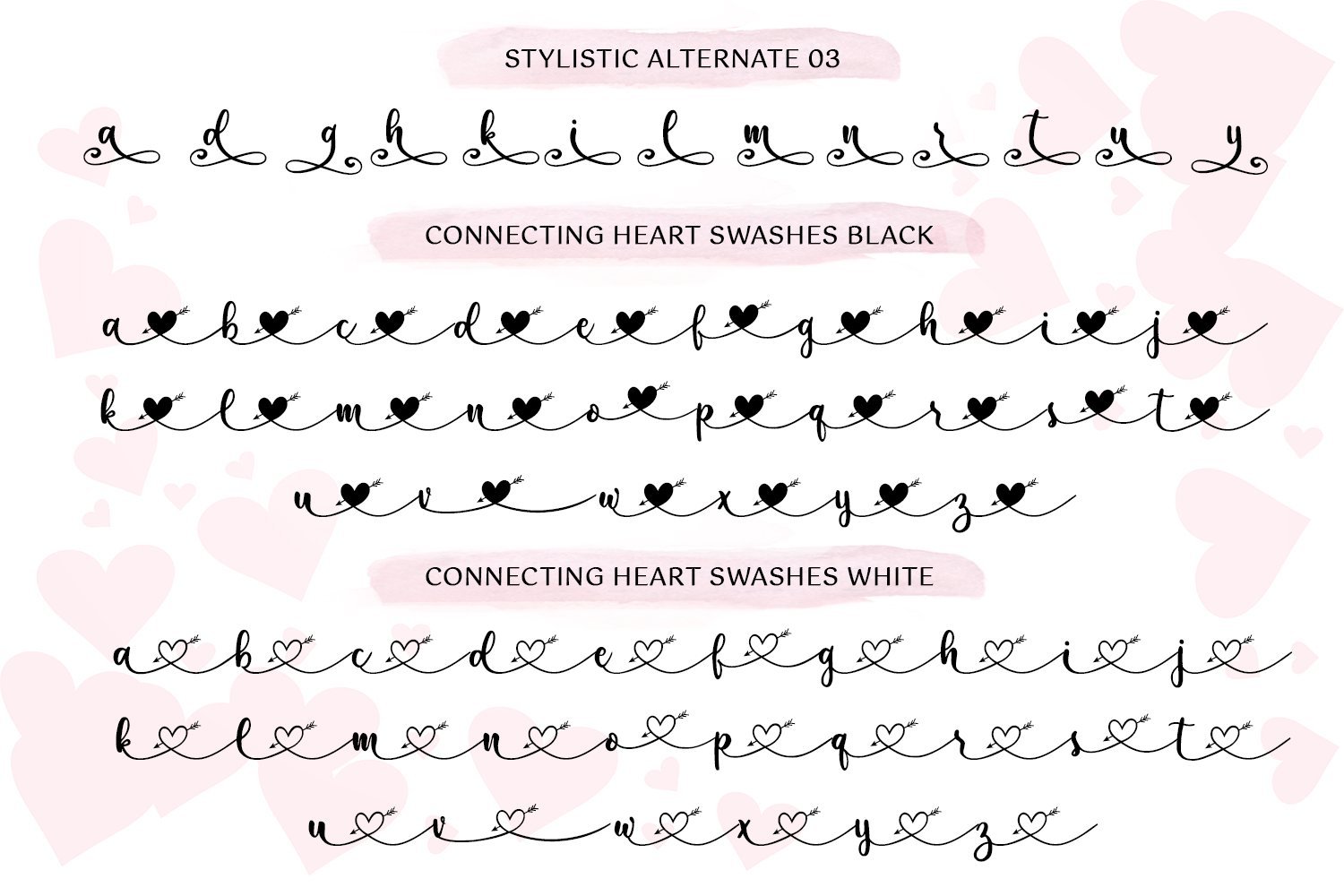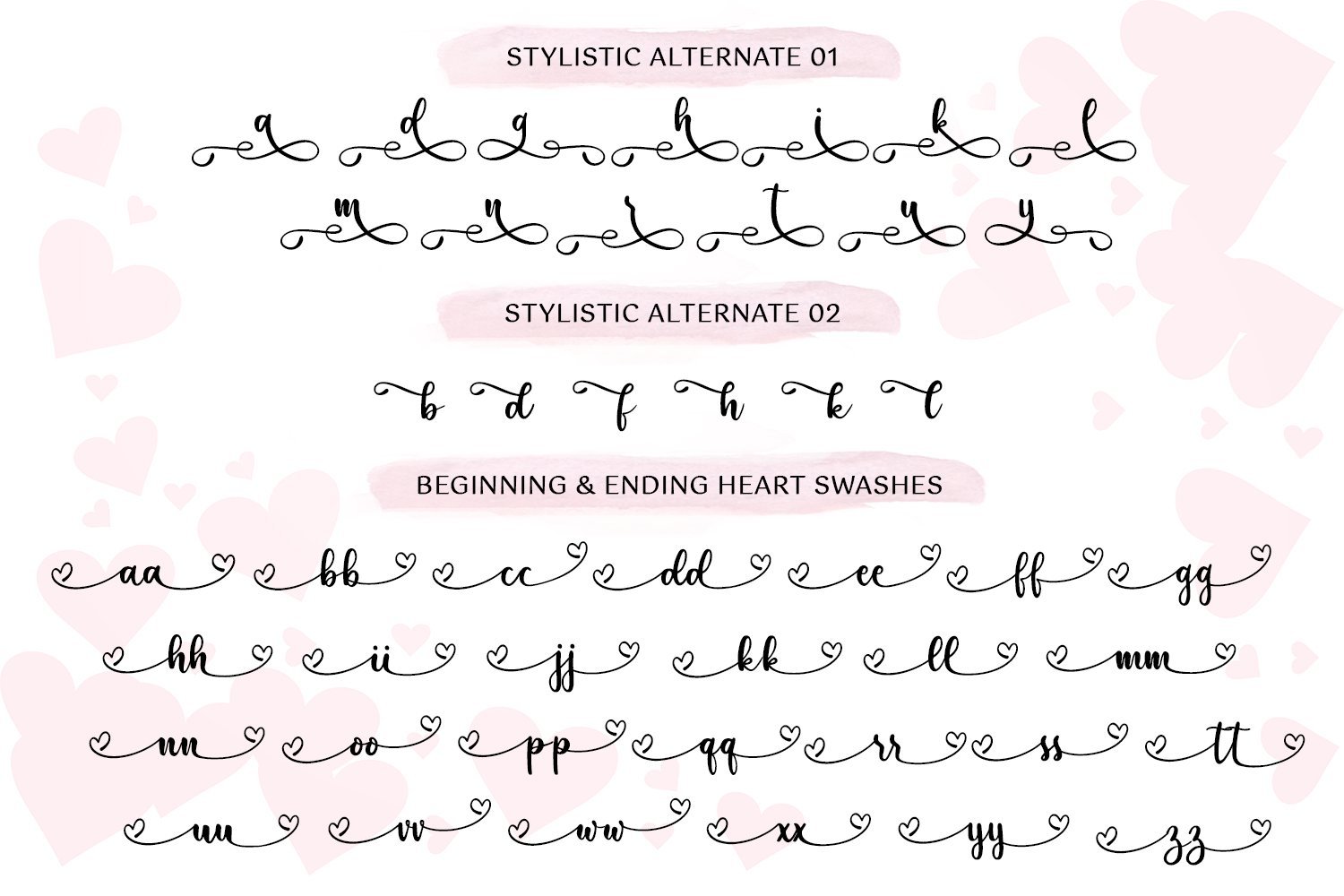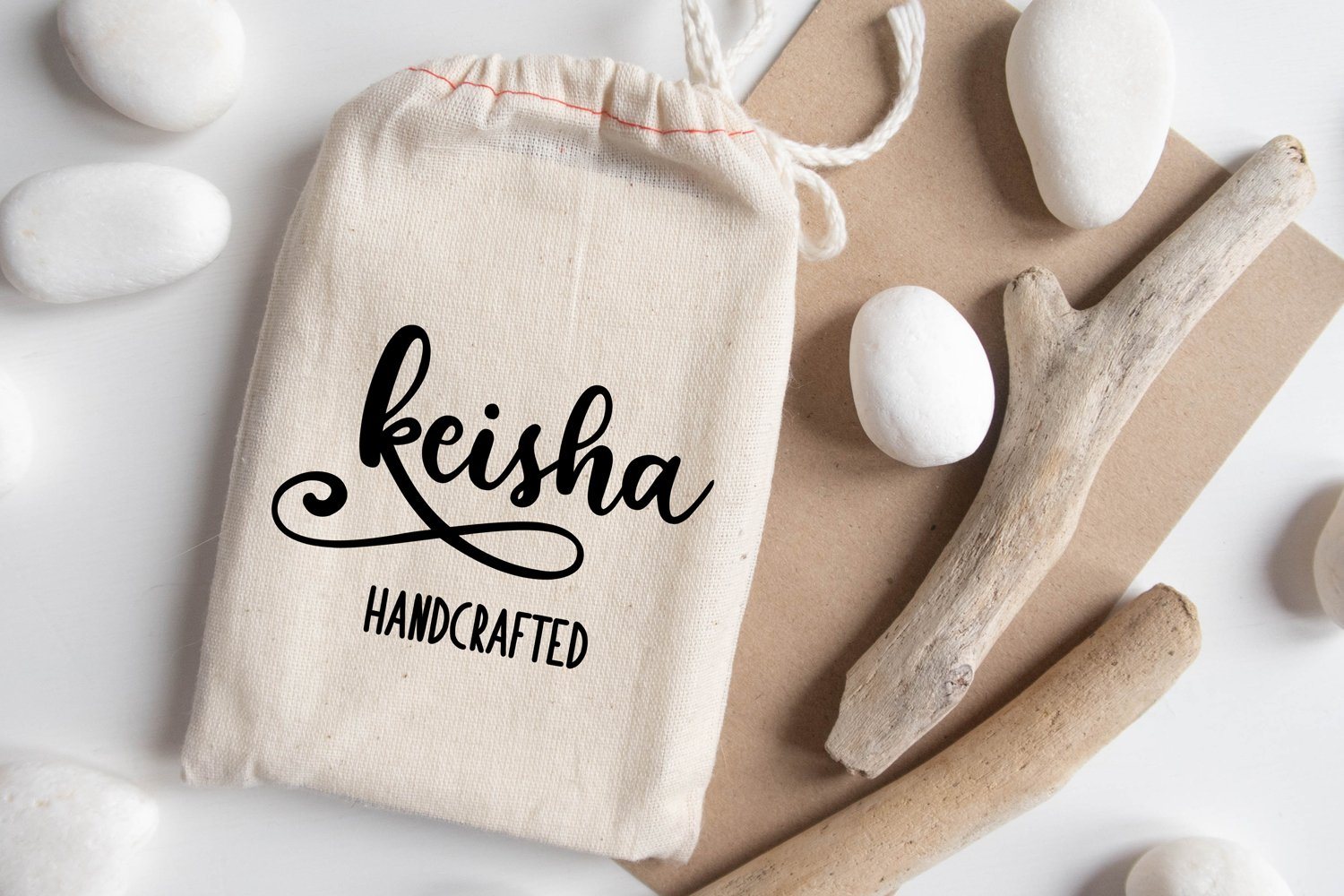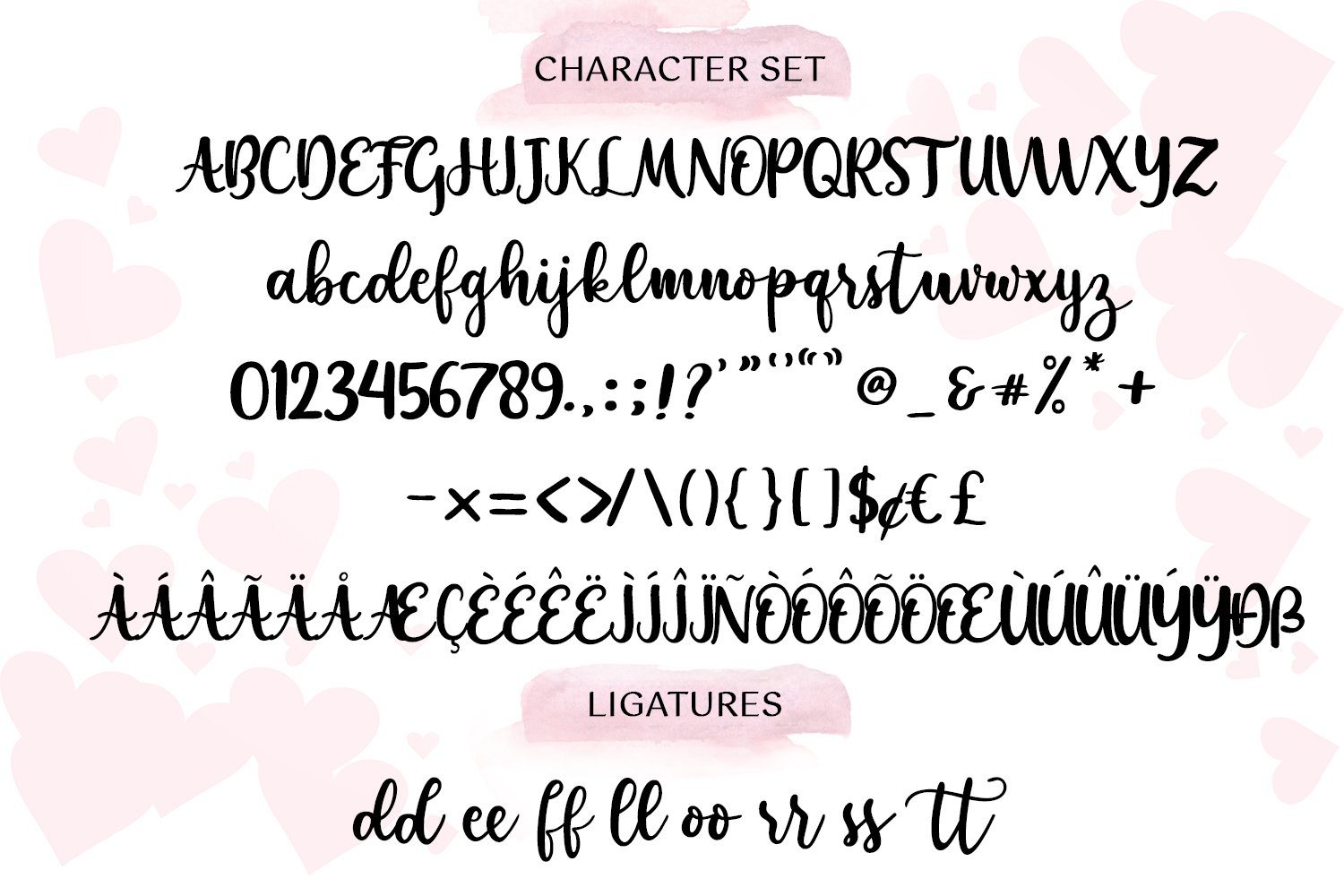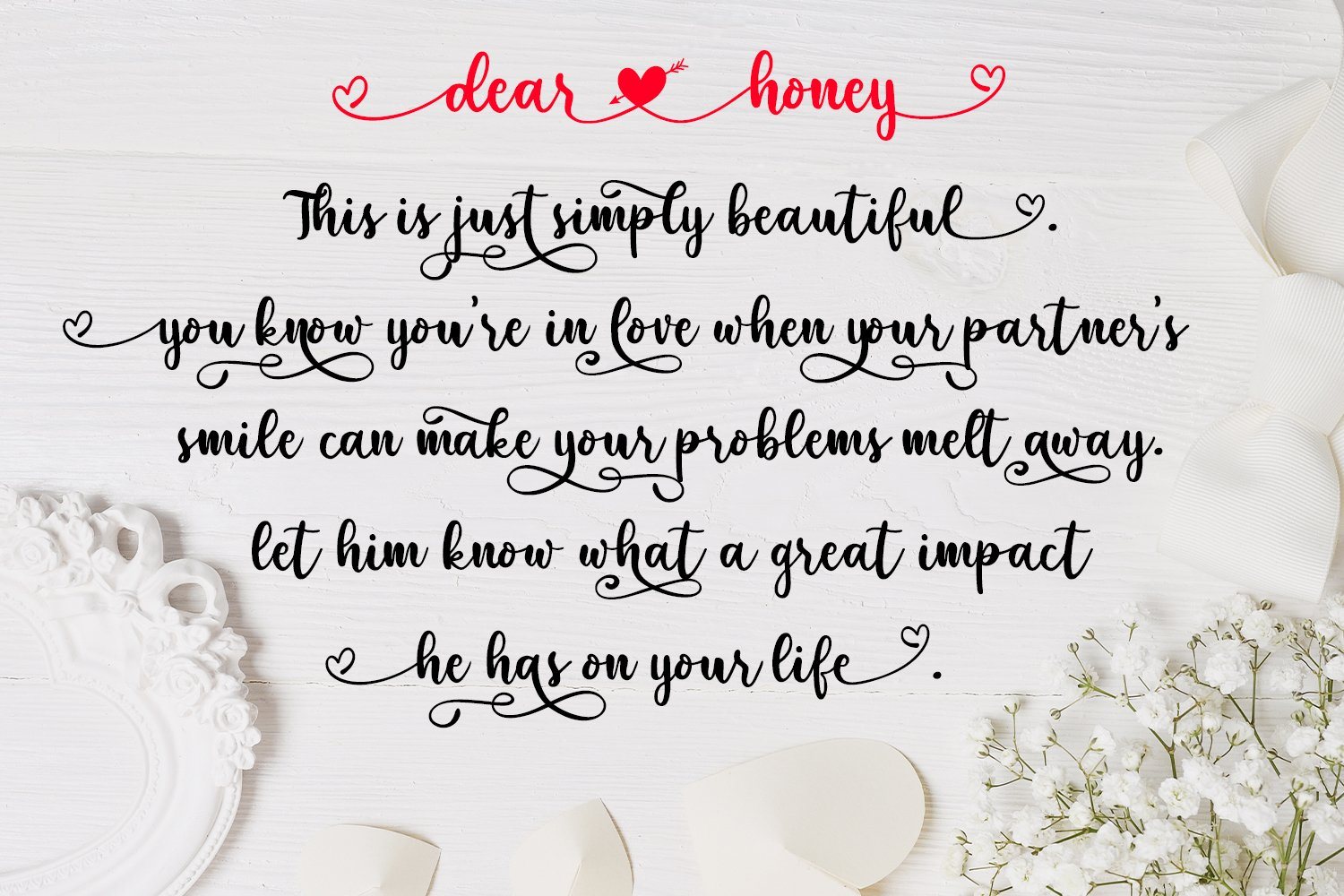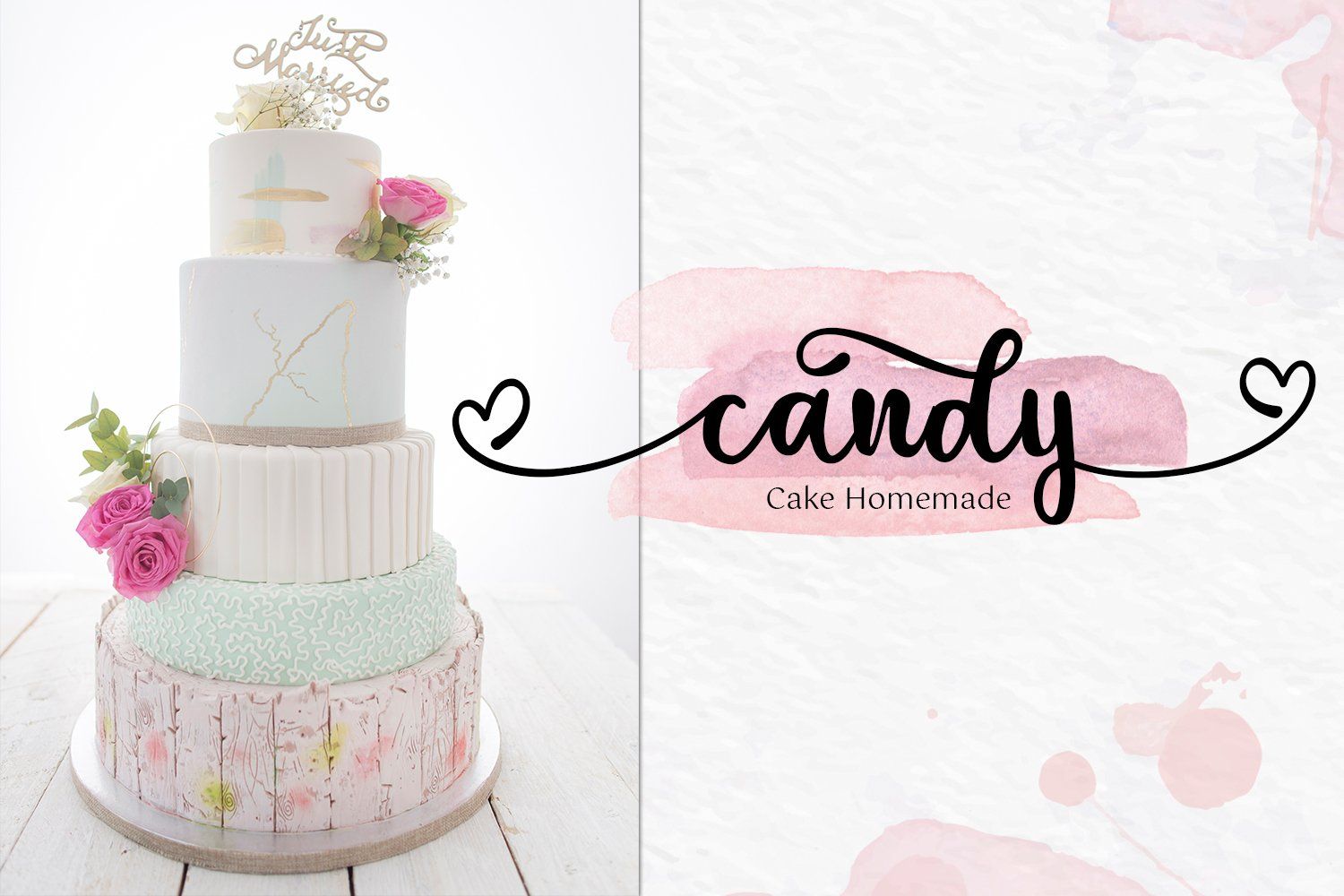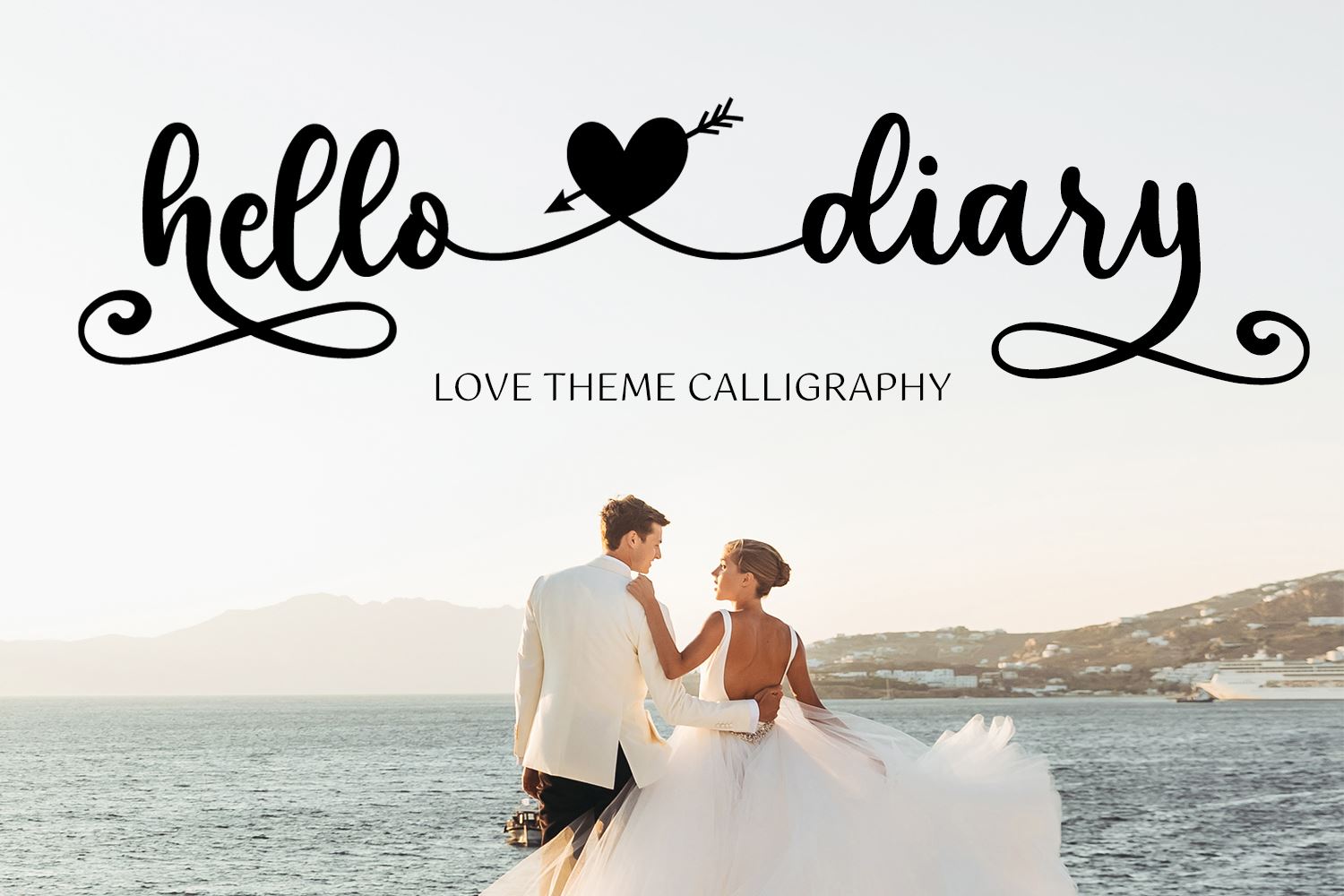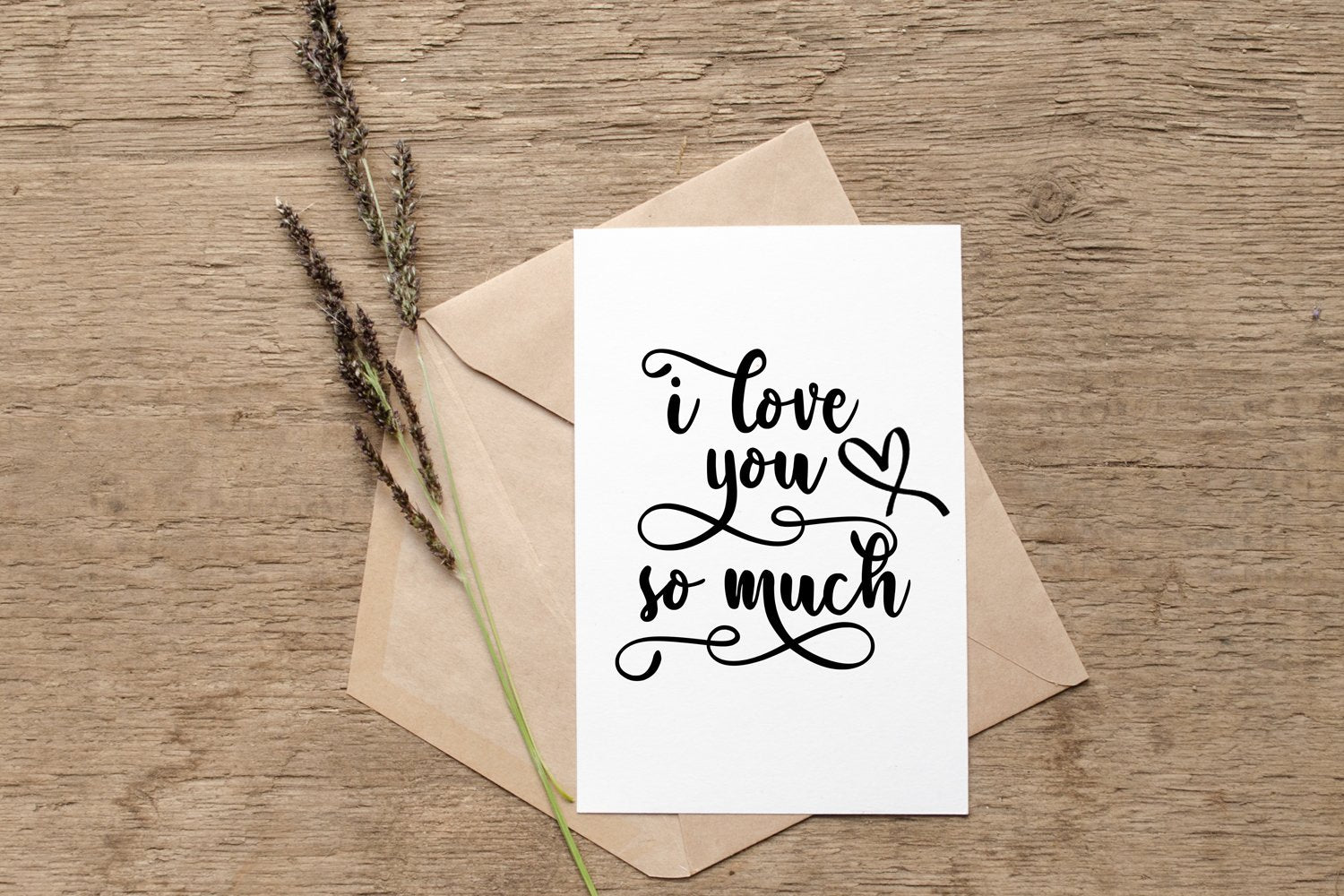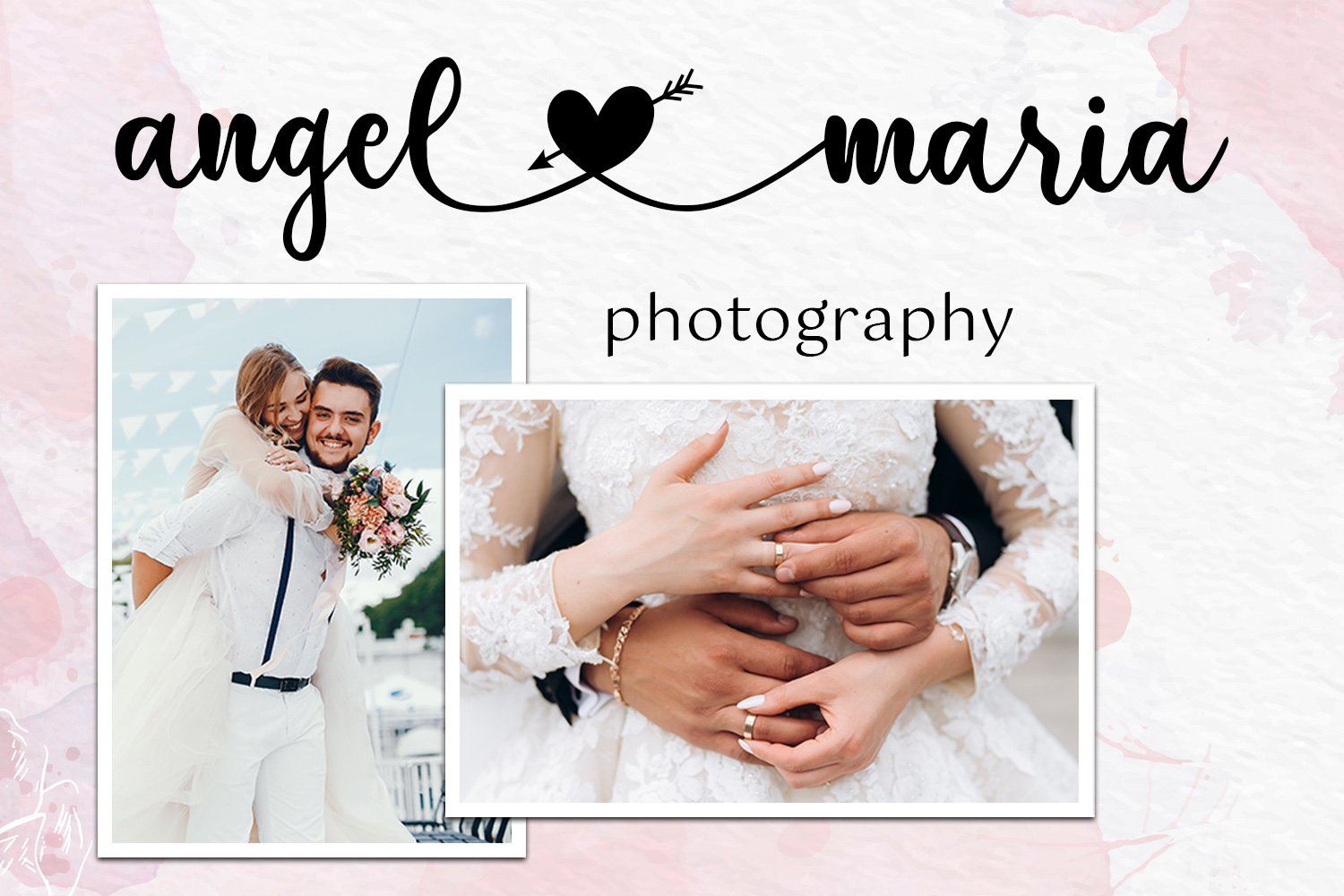
Hello Diary
Hello Diary is a magical handwritten font carefully created with a touch of elegance. It will elevate a wide range of design projects to the highest level, be it branding, headings, wedding designs, invitations, signatures, logos, labels, and much more! What Included this font : – TTF Font – OTFFont – PUA Encoded Characters – Fully accessible without additional design software. – Fonts include multilingual support for; Afrikaans, Albanian, Catalan, Danish, Dutch, English, Icelandic, Italian, Spanish, Portuguese, German, Swedish, Norweigen, Polish, Indonesian, Zulu and etc – Simple installations Thanks for downloading, and I hope you enjoy it!